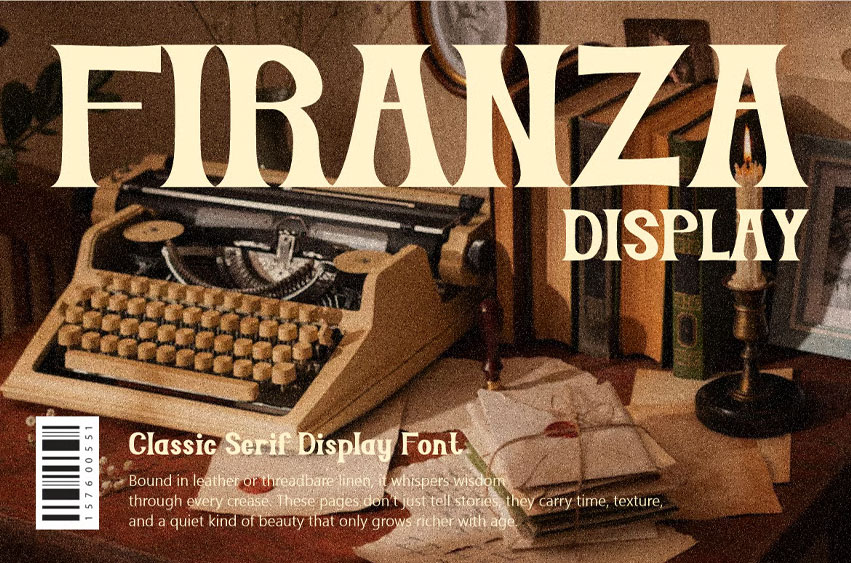
Firanza Font Display is a refined serif typeface inspired by the timeless elegance of vintage editorial design. With soft curves, sharp serifs, and graceful proportions, Firanza evokes the sophistication of classic book covers, antique posters, and literary magazines. Each letterform is crafted to mimic the drama of typewriter nostalgia while embracing the clarity of modern digital aesthetics. The font shines in uppercase display use but remains readable across various media formats. Firanza’s distinct presence suits editorial headers, vintage-themed branding, and cinematic titles.
Whether you’re designing a historical novel, a luxury brand identity, or period-style packaging, Firanza Display delivers unmatched character and charm. The font pairs especially well with muted color palettes, old photographs, and textured backgrounds to maximize its retro appeal. Its versatile glyph set includes uppercase, lowercase, punctuation, and numerals, making it suitable for both bold statements and detailed design systems. Firanza Display is a powerful choice for creators seeking depth, emotion, and legacy in their visual work.